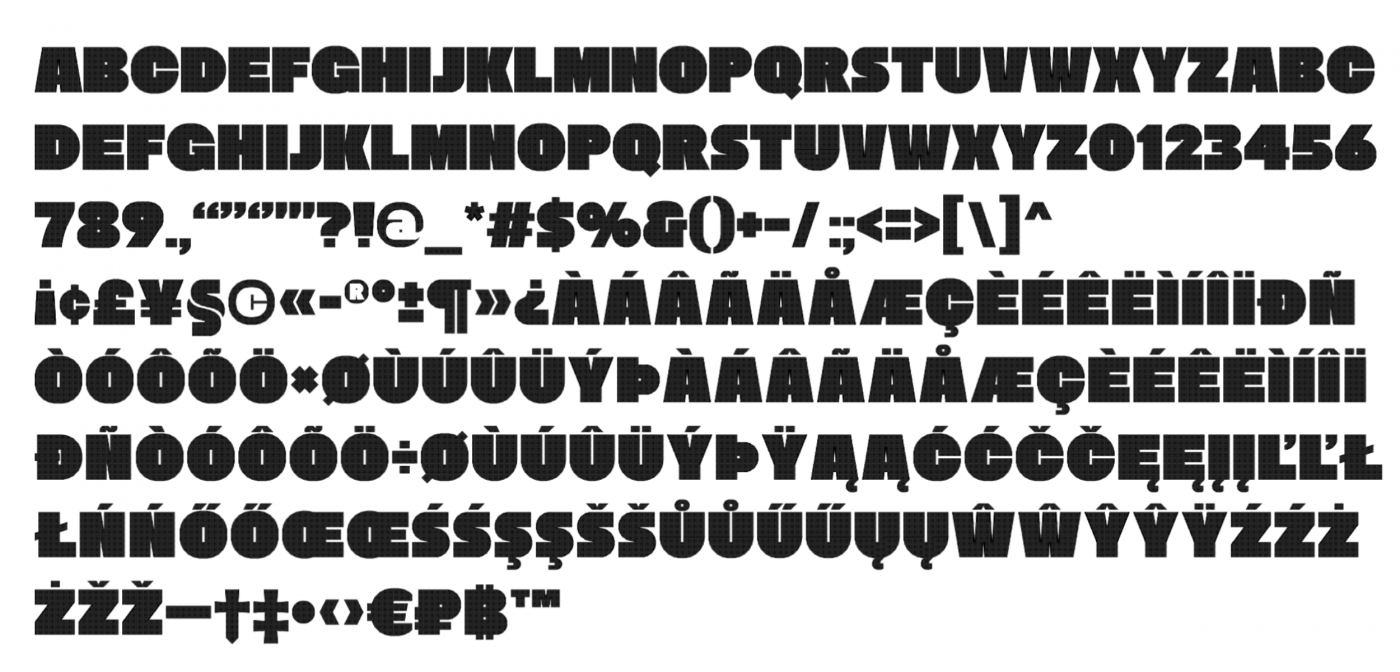
• Gildor: A high elf from Tolkien's The Lord of the Rings. He met Frodo, Pippin, Merry, and Sam on their journey to Rivendell. Gildor Grotesk: I  considered the alliteration.
heavy grotesks are really my thing
Quite the strong design 10/10
This heavy sans serif has some curvy features (and without Bezier curves, of course). It was challenging to get the proportions right and make the letters work in concert. For visual compensation, a full brick overshoot was applied at the top and the bottom for every rounded letter. That means the C, G, and O are taller than the E, H, M, and other letters by two bricks. The U has one brick overshoot at the bottom. It is hardly noticeable in the samples.
WOOOW! What a beauty! Basically I was using a similar idea (something like Futura with design modifications) in one of the fonts I was preparing for this Comp... But no problem, dear Maestro, I love yours (as usual) and I'll leave this one I was preparing for another chance. :-))
What a wonderful work! Cool to see some of the similarities between this and my latest competition entry, even though there is such a striking difference in grid ratio and stylistic approach!
Beautiful work, a worthy addition to the tiny counter club. There is such balance between the glyphs, those overshoots work really well. All it needs is a few kerning tweaks.
You make such beautiful glyphs.
The use of the guides in your FontStructor sample make me love the font even more.
The first sample makes me think of Discord whenever I see it.
Pretty nice font, It probably works very well with titles and other large text
@ Sed4tives: Thank you for your comment and generous rating. I was thinking along similar lines: with a lot less brick-pushing you could produce a fairly elegant font of the same kind which doesn't even need kerning. Meanwhile, I was struggling quite a lot with a few glyphs the get them right. Well, our methods and approaches are different, yet we love the same aesthetics.
@four: Thank you for your kind comment. I tested several versions for the visual compensation. Using the Nudge function it was easy to change the overshoot in small increments. In the end, the full brick size looked the best. Yes: kerning is on my to-do list. Not my favorite part of type design, but necessary.
@thalamic: Thank you for your comment and praise. I use the extra guides regularly. It helps me to get the proportions right and place some parts to the proper level. Apart from showing the overshoot, that screenshot above has another purpose. It proves my letters do not exceed the 48-brick limit. I still have 6-6 bricks (for diacritics) at the top and at the bottom.
@Bryndan W Meyerholt (BWM): Thank you for your comment. Yes, the intended use of this font is titles or short snippets of text at large sizes.
This font joins in a wonderful evolution of form and function;  I ?? it.
It would still have attached a little more attention to & and @, by the way ; ) 10/10
@Beate: Thank you for your kind words. I didn't like the original @ myself. The new one is better, but it needs further refinement. The & ? I'm not sure. This is how I interpret this glyph when it's heavy. (I always appreciate the honest critique.)
Congratulations! FontStruct Staff have deemed your FontStruction worthy of special mention. “Gildor Grotesk” is now a Top Pick.
Congrats on the TP, dear Master!
Your font is perfect 10/10
@ PhuWorks (Phú Real): Thank you for your kind words. I appreciate your opinion, but I have to disagree. This font is far from perfect. I've been working on a major upgrade since yesterday and realised there was a lot more work to be done. How did you know I was working on this font?